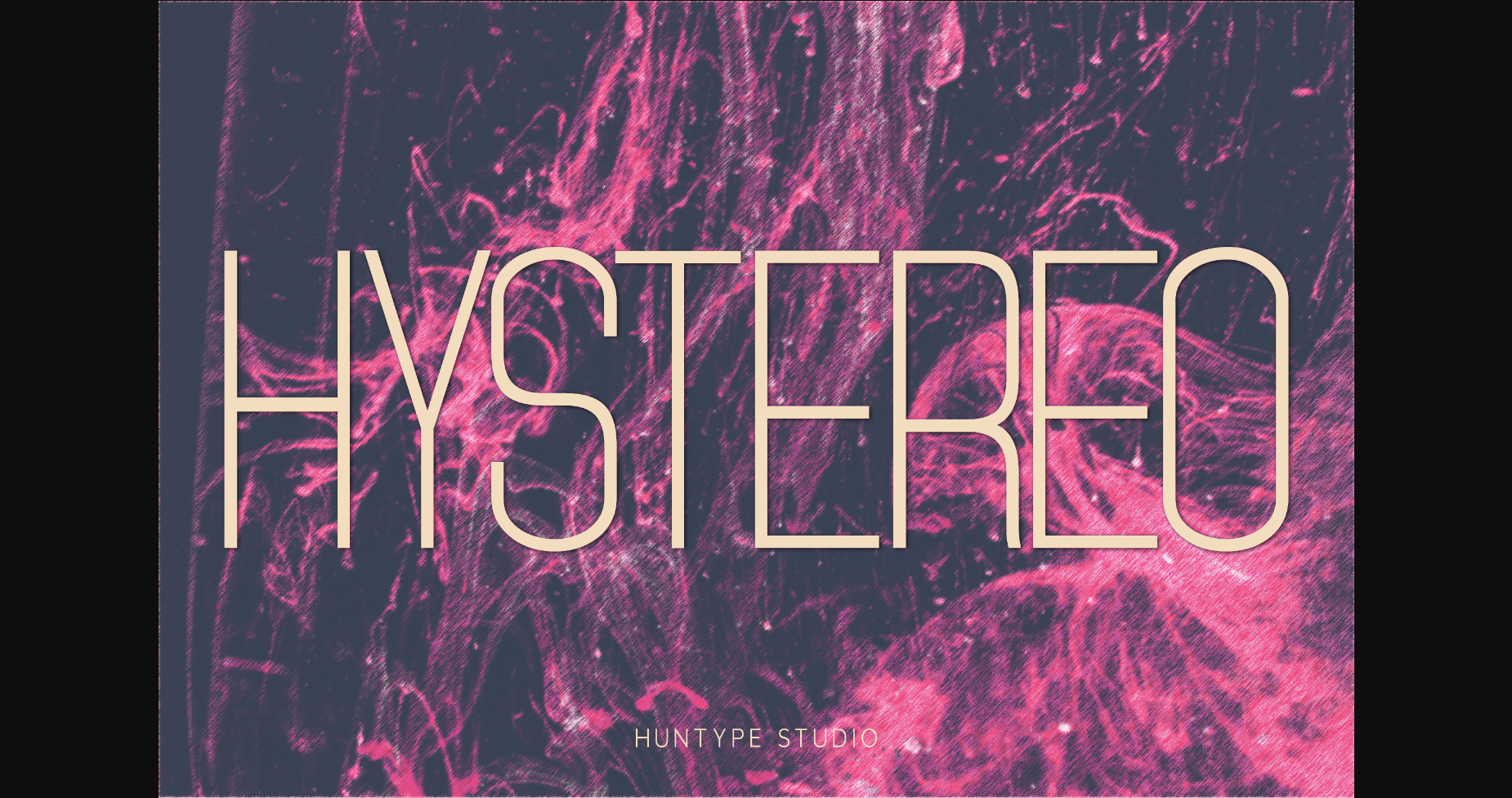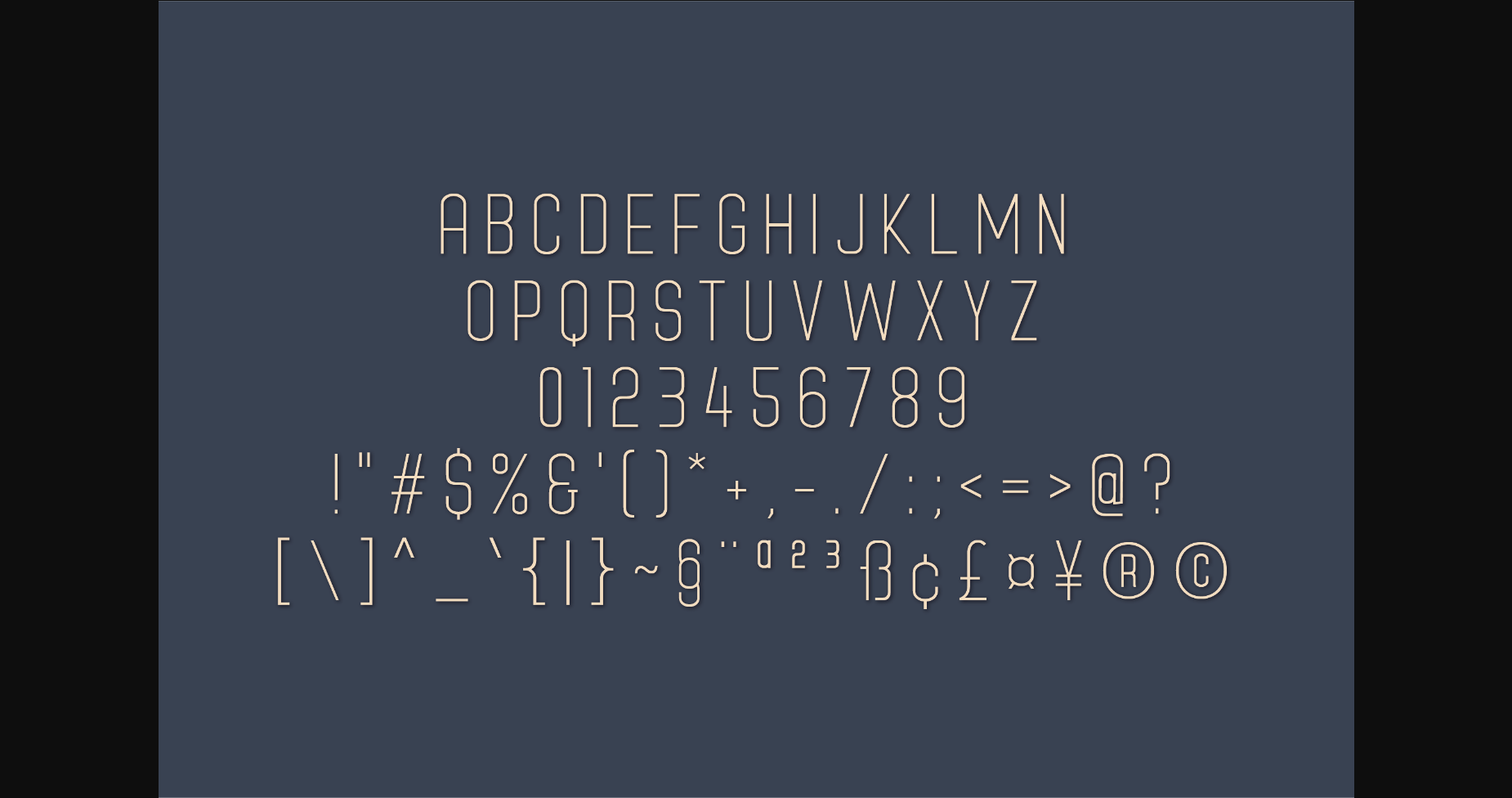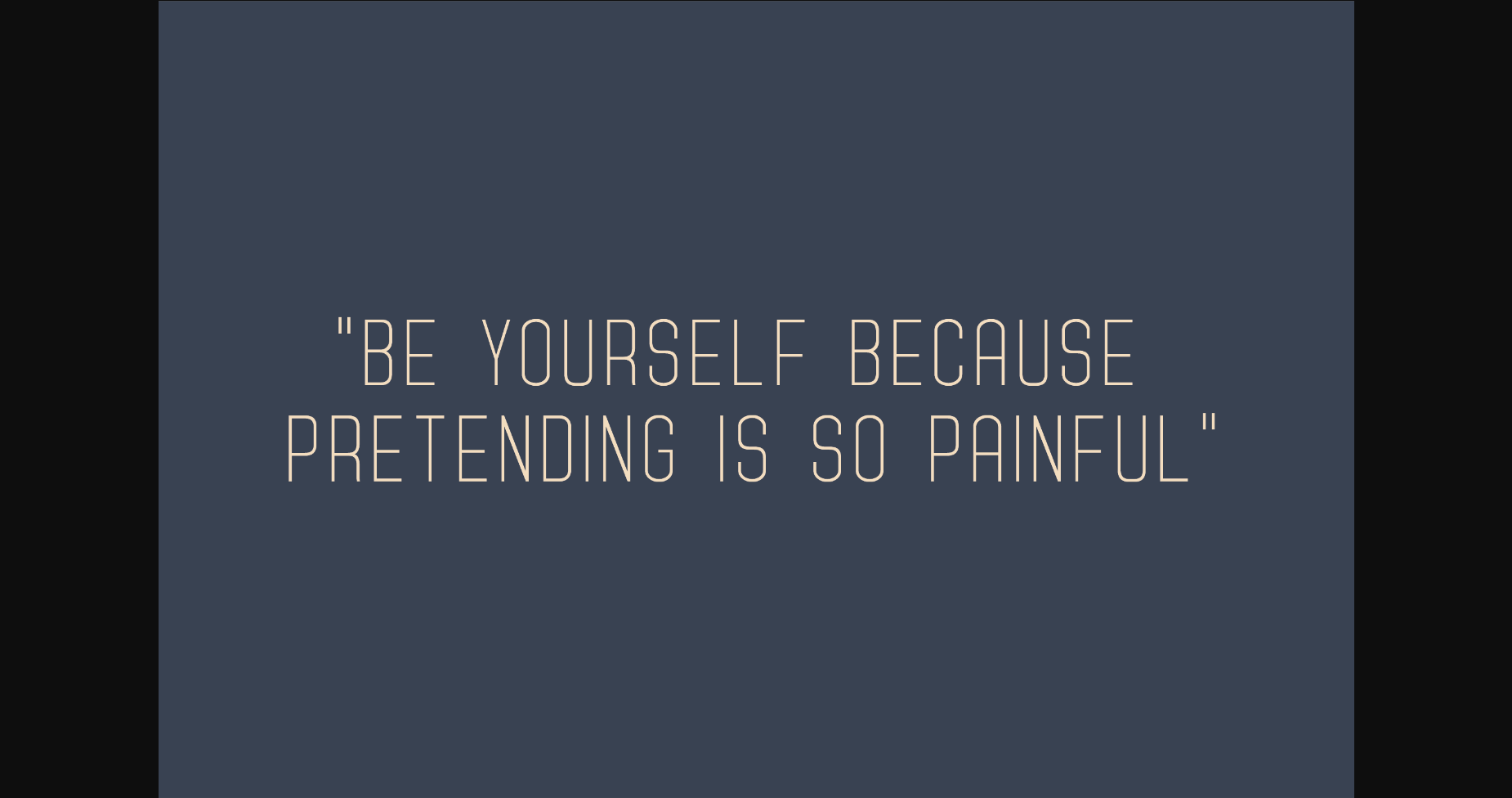
About Hystereo Font
Hystereo is an all-caps sans serif. It is versatile and looks great in just about any context. With smooth and clean lines and just a touch of contrast, Hystereo works beautifully for logos, branding, and web headings.